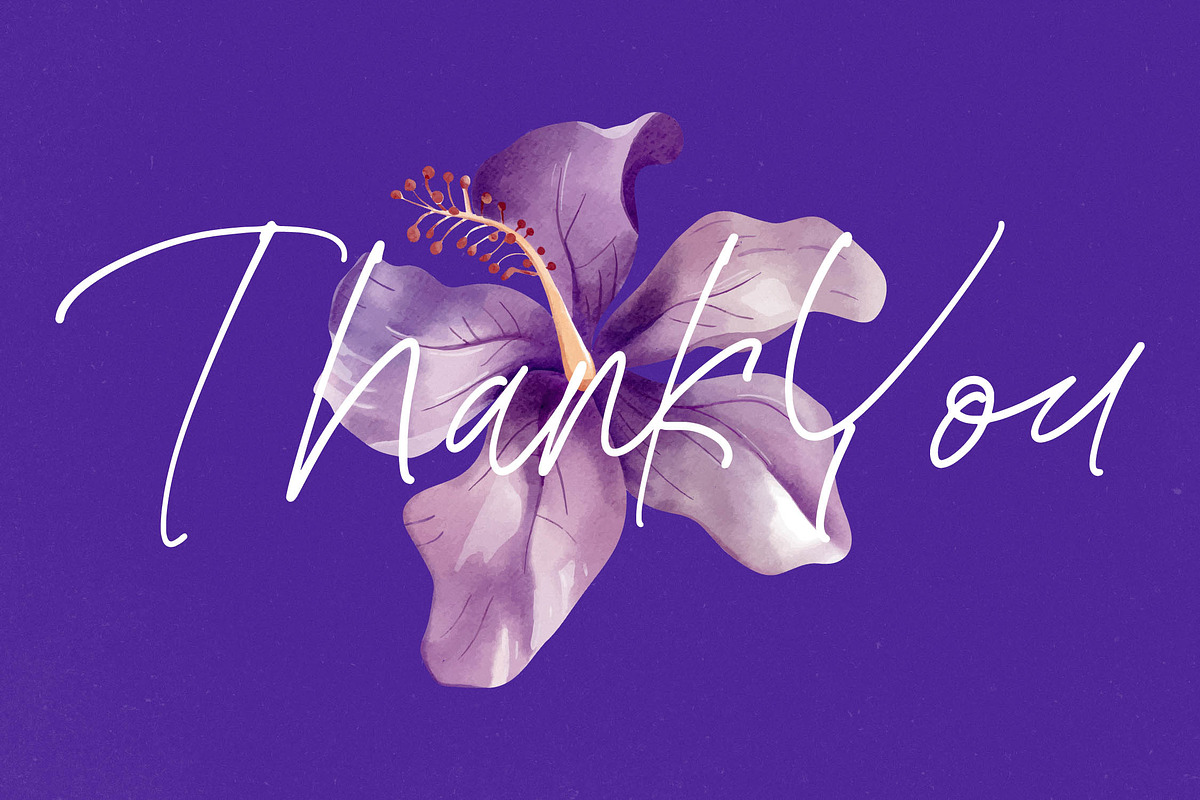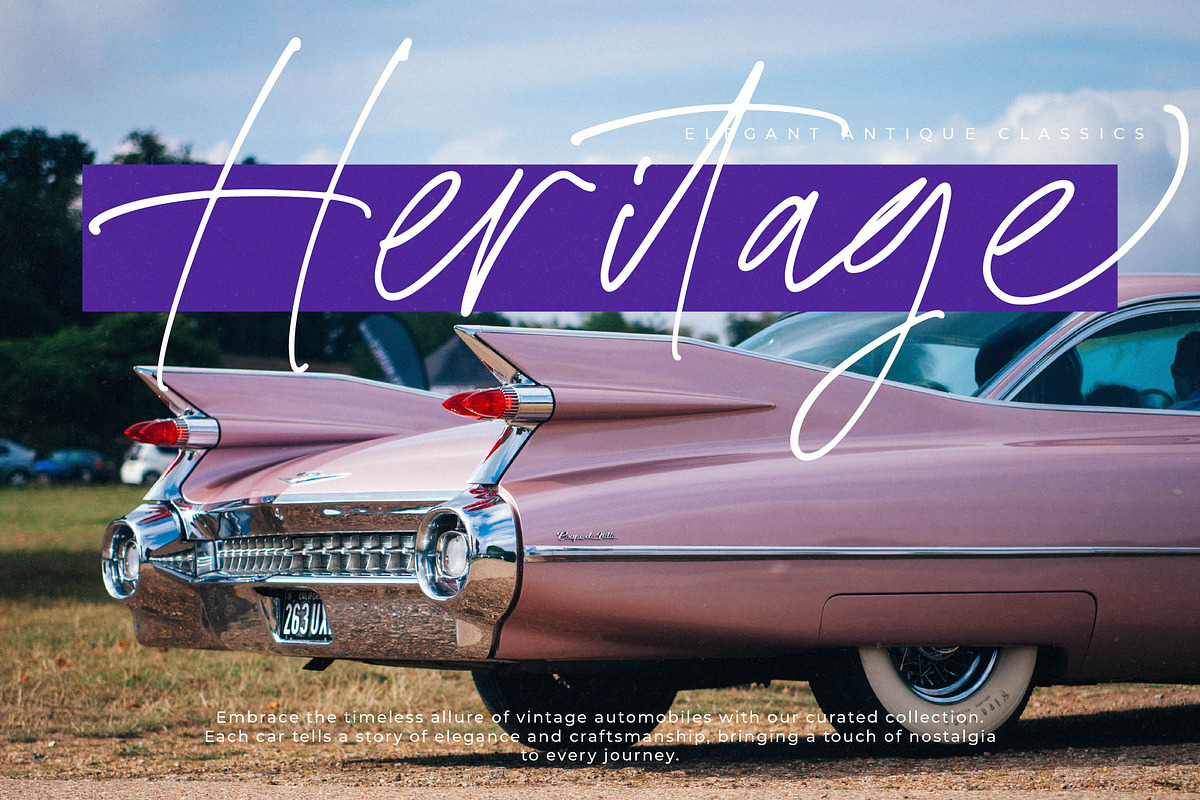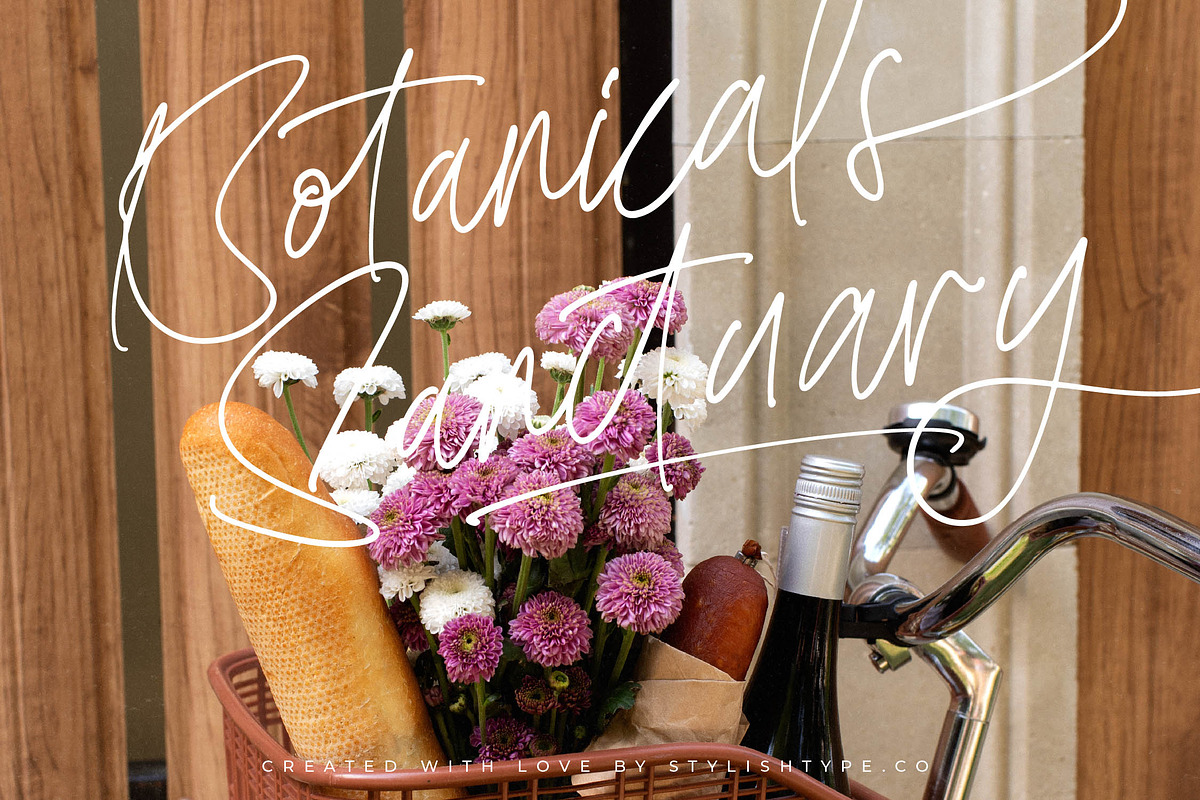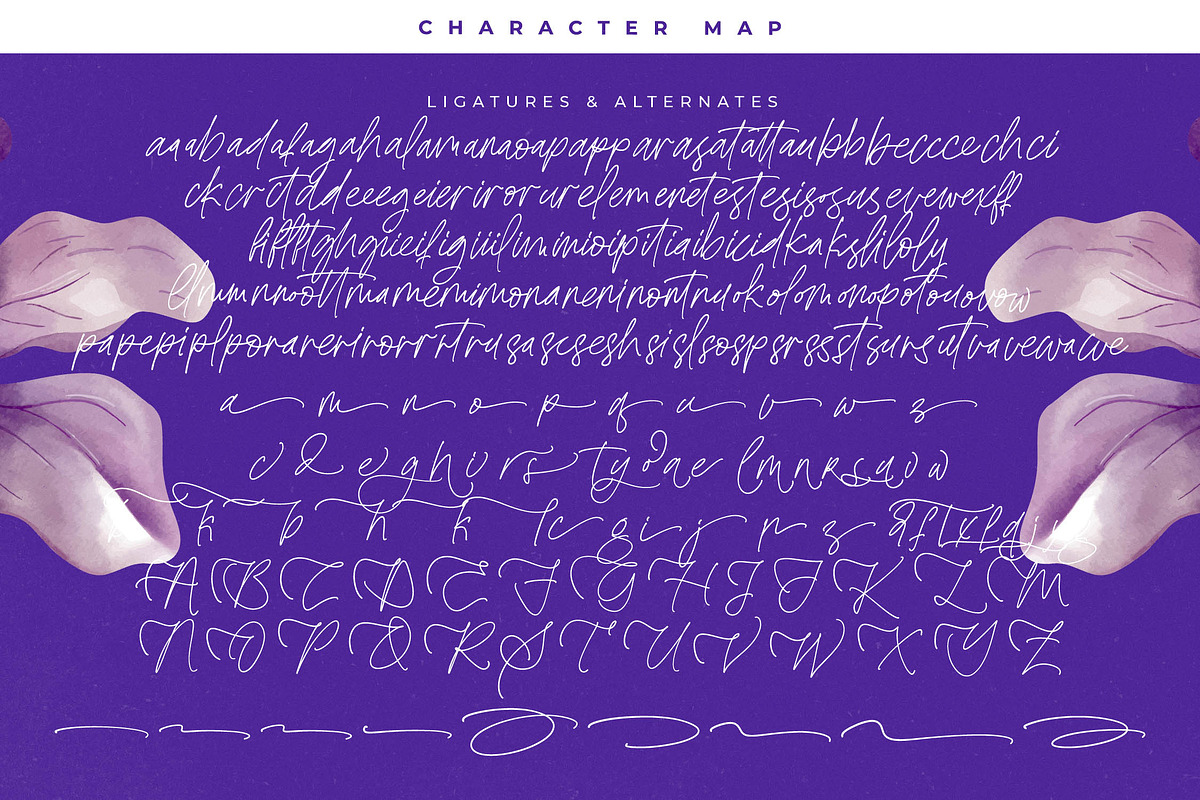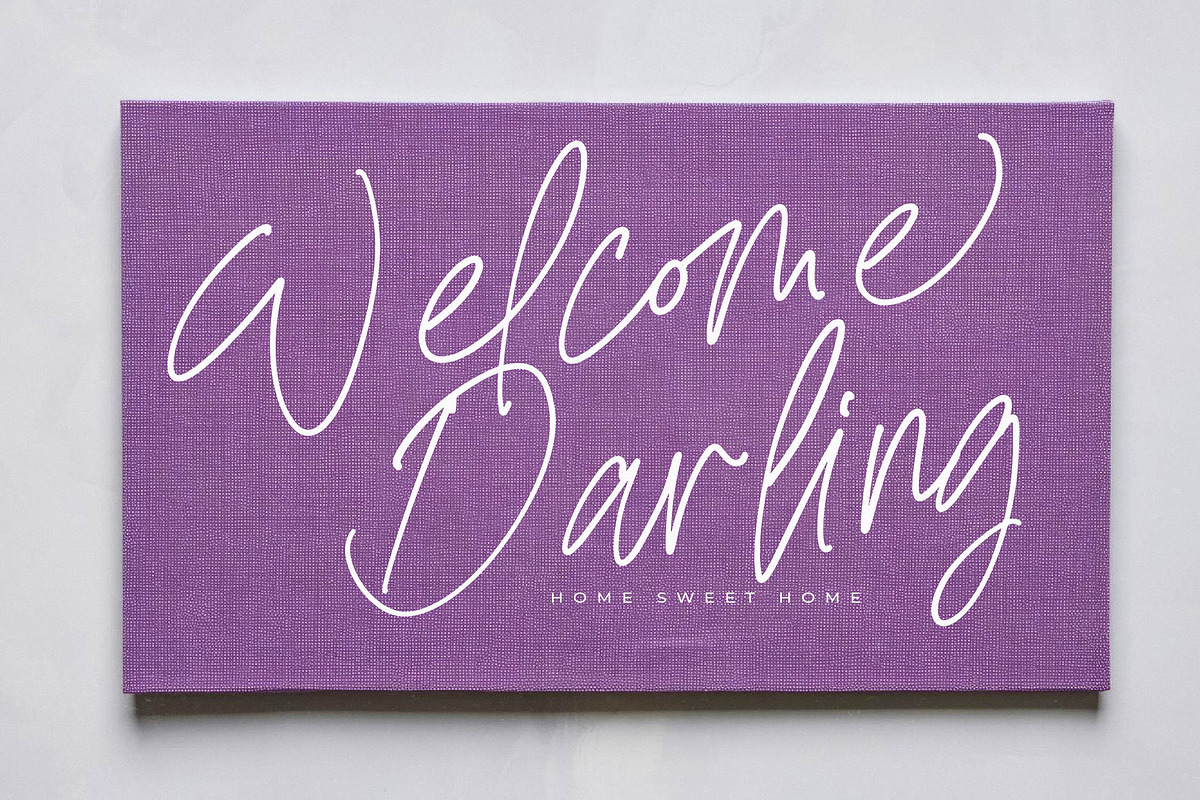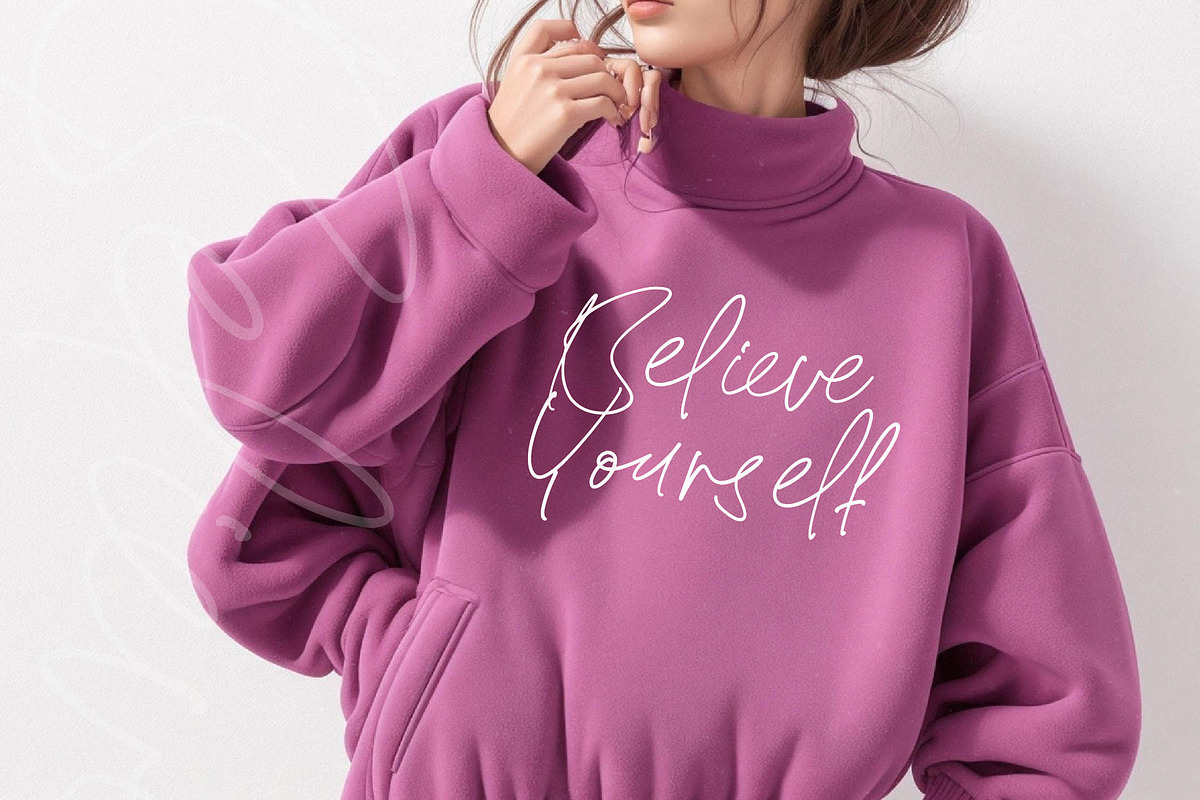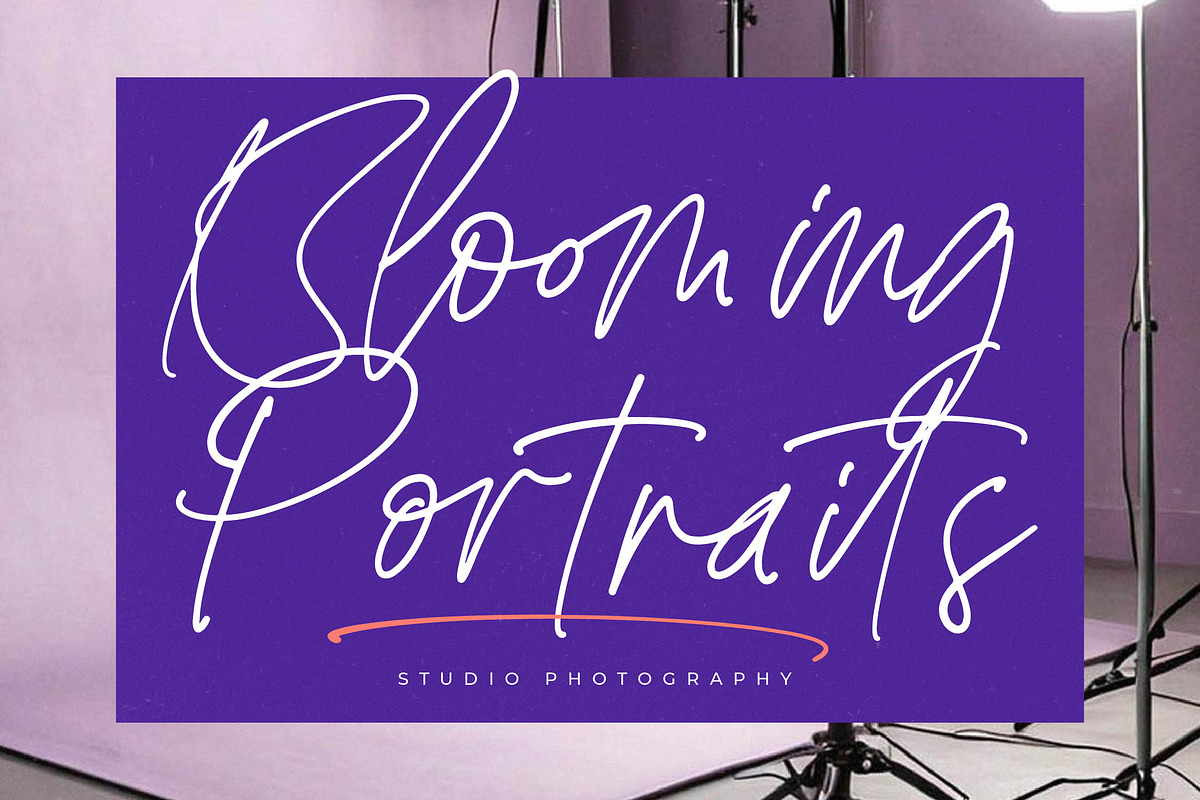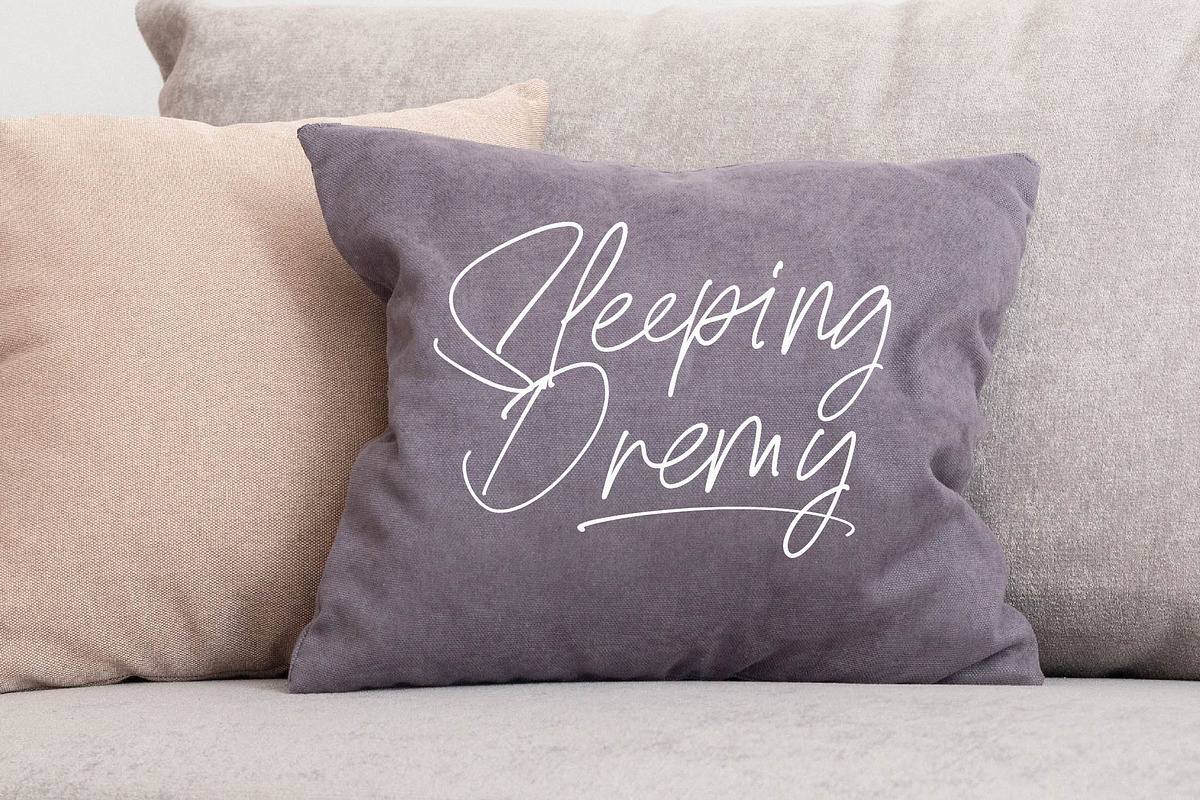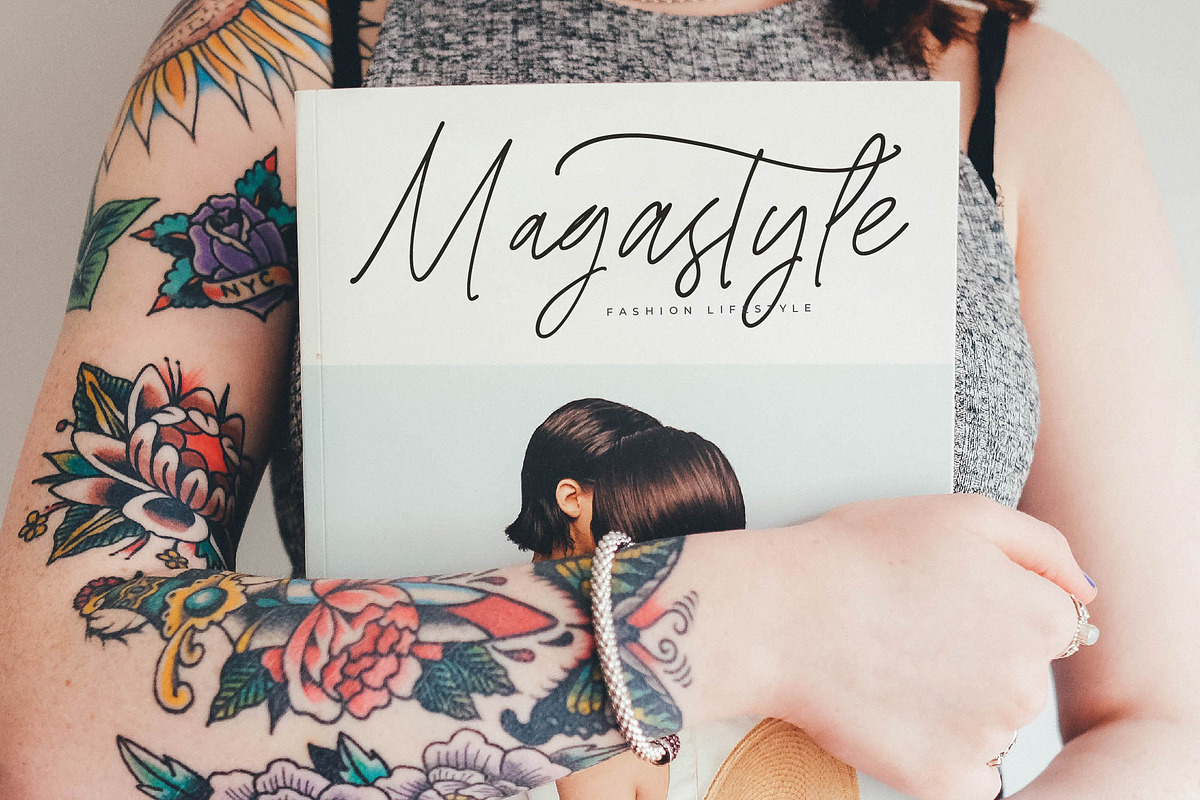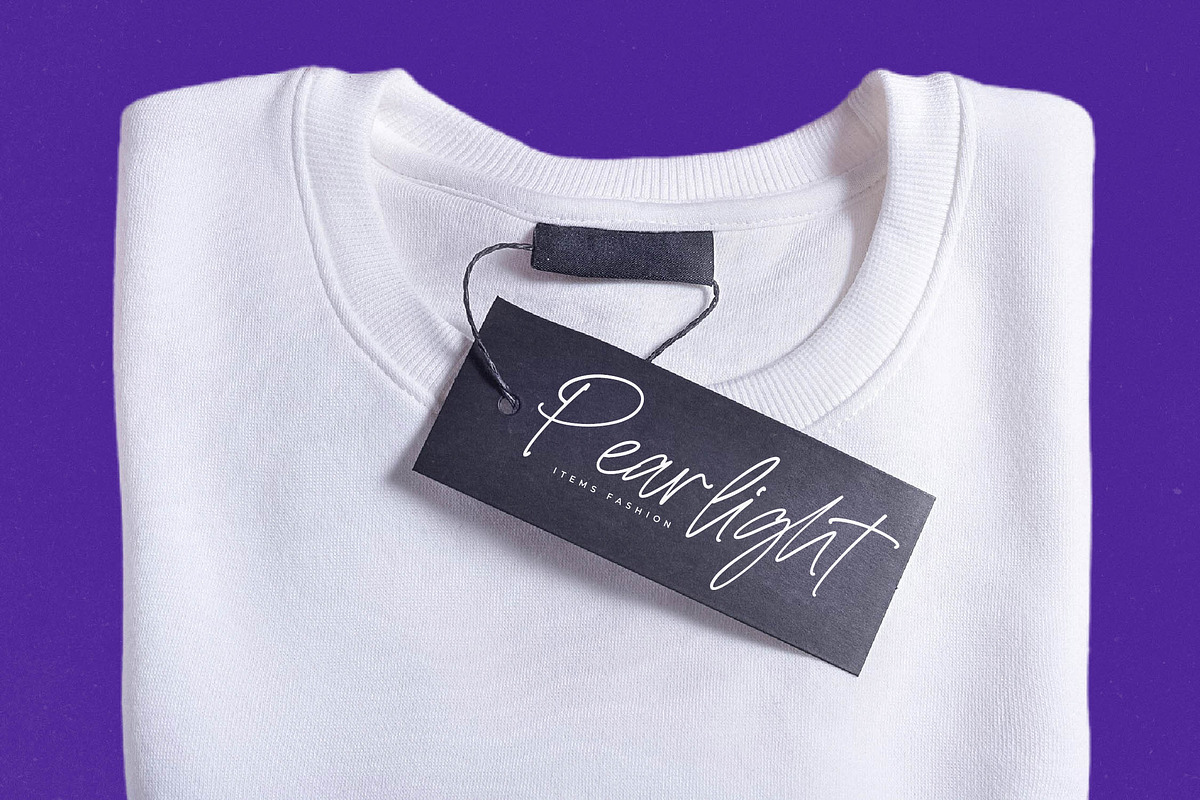
Bestnight Tropicals Ballpoint Script
Bestnight Tropicals - Ballpoint Natural Script , Capture the essence of effortless elegance with Bestnight Tropicals, a font that dances across the page with natural grace. It transforms every word into a personal note, bringing a touch of authentic human connection to your digital canvas.
Inspired by the fluid strokes of a fine-tip ballpoint pen and the relaxed atmosphere of a tropical sunset, this typeface was born from a desire for genuine expression. It mirrors the spontaneous beauty of handwritten journals and botanical sketches found in a seaside studio.
This font delivers a sophisticated modern serif display aesthetic through its flowing script forms, ensuring a high-end luxury typography feel for any creative endeavor. As a high-contrast script, it provides an exceptional editorial font quality that guarantees a significant branding impact for boutique labels and independent creators.
Perfectly aligned with the modern serif trend of blending organic textures with clean lines, this script stands out among editorial display fonts. Its character-driven typography allows designers to tap into the current market demand for "perfectly imperfect" aesthetics that feel both timeless and contemporary.
Whether you are crafting a unique logo design or building a cohesive branding identity, this font offers the versatility needed for high-end editorial layouts. It is the ideal choice for packaging that tells a story, romantic wedding stationery, and chic fashion lookbooks that require a signature touch.
This professional package is packed with over 132 ligatures and 78 alternates with decorative swashes to create a truly custom look. Full multilingual support and a wide range of international characters ensure your message reaches a global audience with flawless execution.